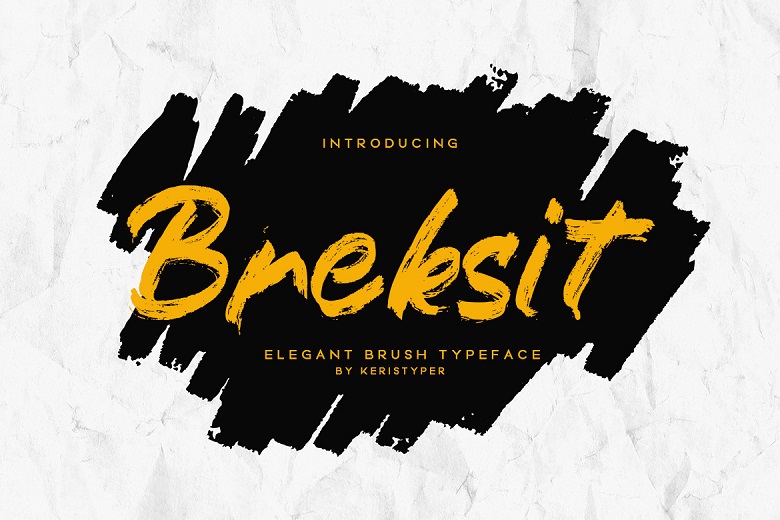
Breksit Font
Breksit is a gorgeous and brushed handwritten font with an adventure feel and bold character. It is perfect for traveling and adventure designs, badges, logos, posters, branding, packaging, signage and book covers and much more.
Breksit Brush Script Font